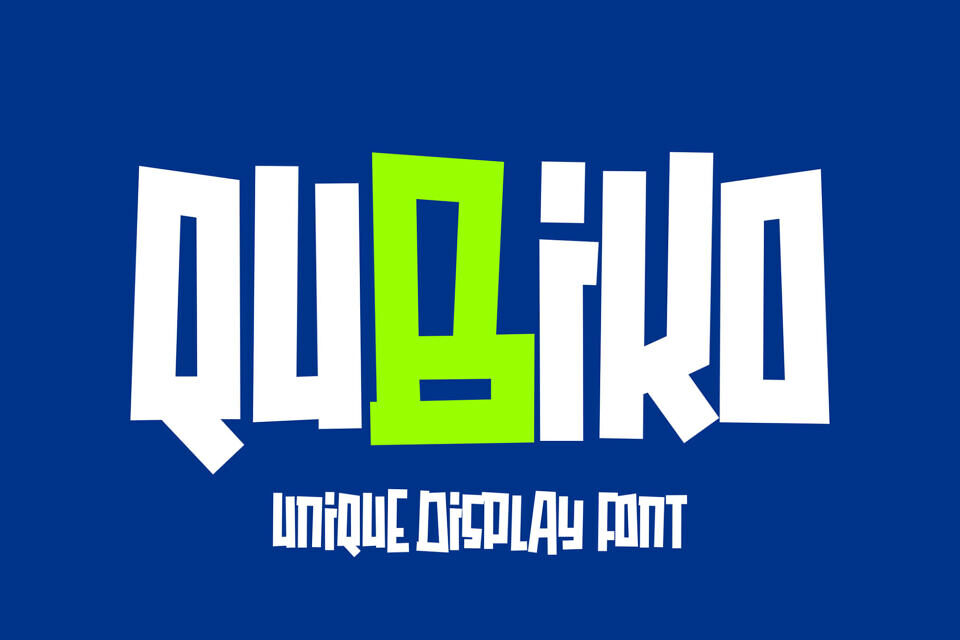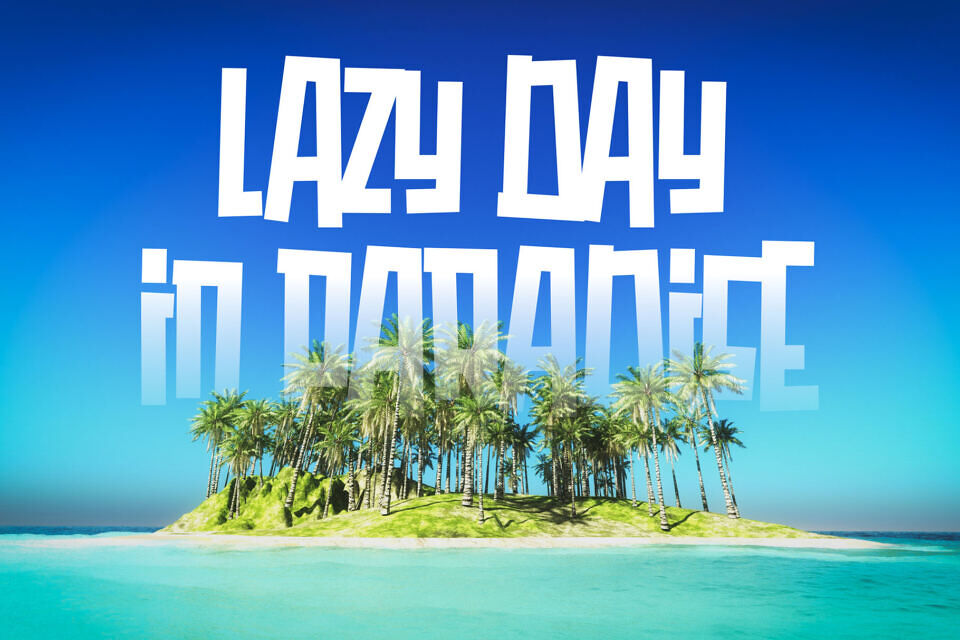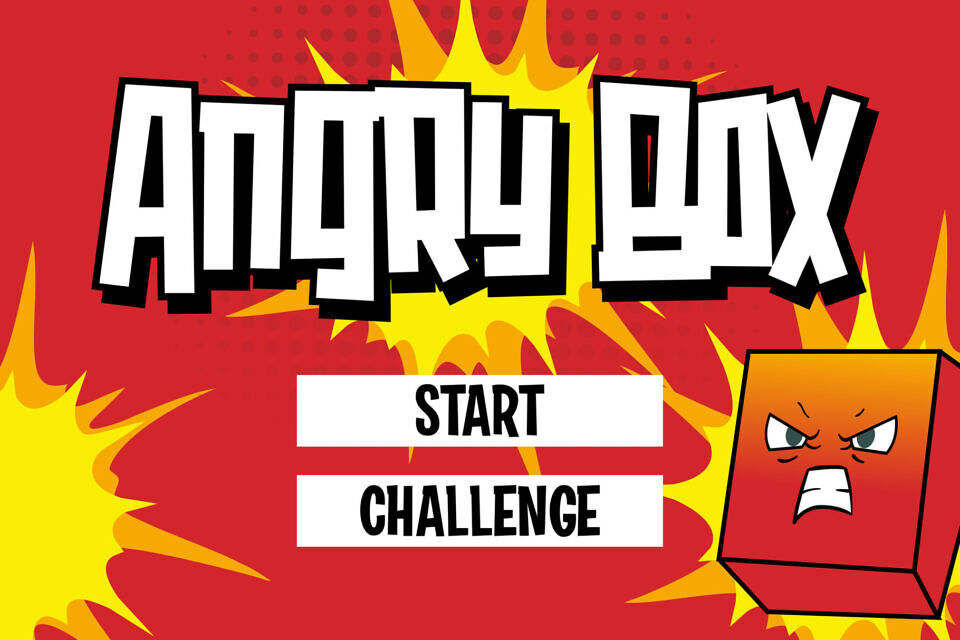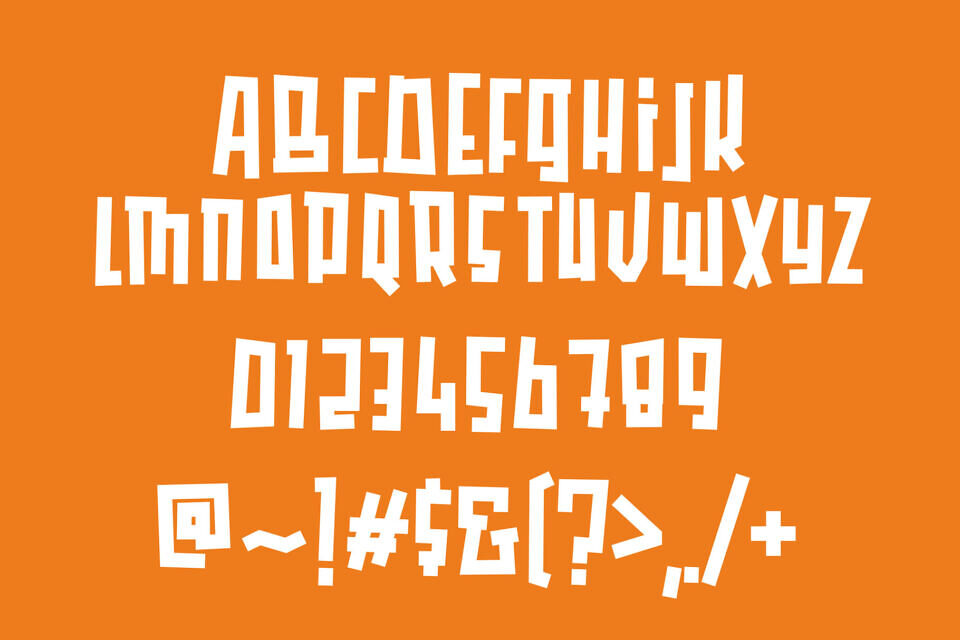
Qubiko Font
Qubiko is a unique display font with strong characteristics that are inspired by a clear line on a box. Make it very suitable for various design purposes such as packaging, titles, headlines, posters, t-shirts, and also able to make the design stand out more.